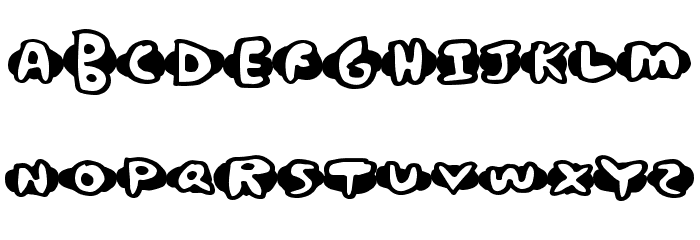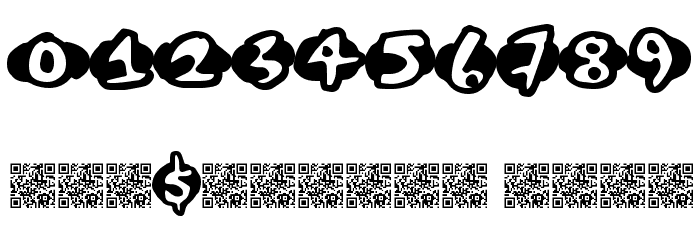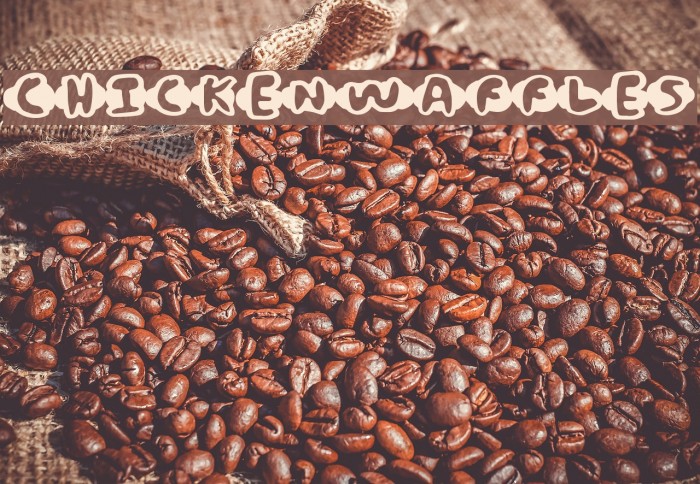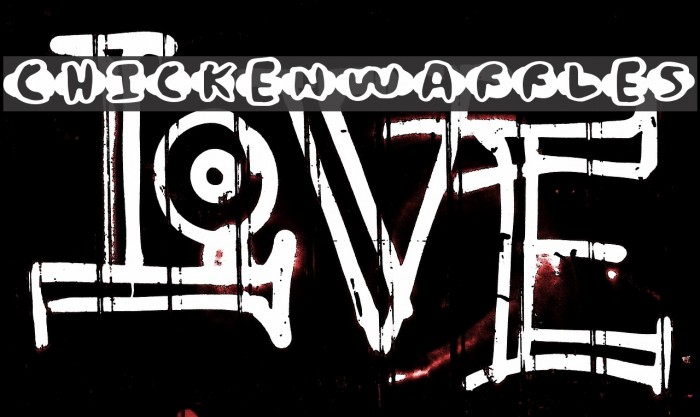
ChickenWaffles Font
This playful and bold font features a unique bubble-like design with thick outlines, giving it a cartoonish and fun appearance. Each character is encased in a rounded, black border that creates a striking contrast against the white interior, making the letters pop. The font maintains a consistent style across uppercase and lowercase letters, as well as numbers and special characters. Its whimsical nature is perfect for projects that require a touch of humor and creativity, such as children's books, comic strips, or playful branding. The exaggerated forms and rounded edges contribute to its friendly and approachable feel.
A bold, playful font with bubble-like characters and thick outlines.
- Proposed Projects: Ideal for children's books, comic strips, playful branding, and creative posters.
- Overall Style: Playful, Cartoonish